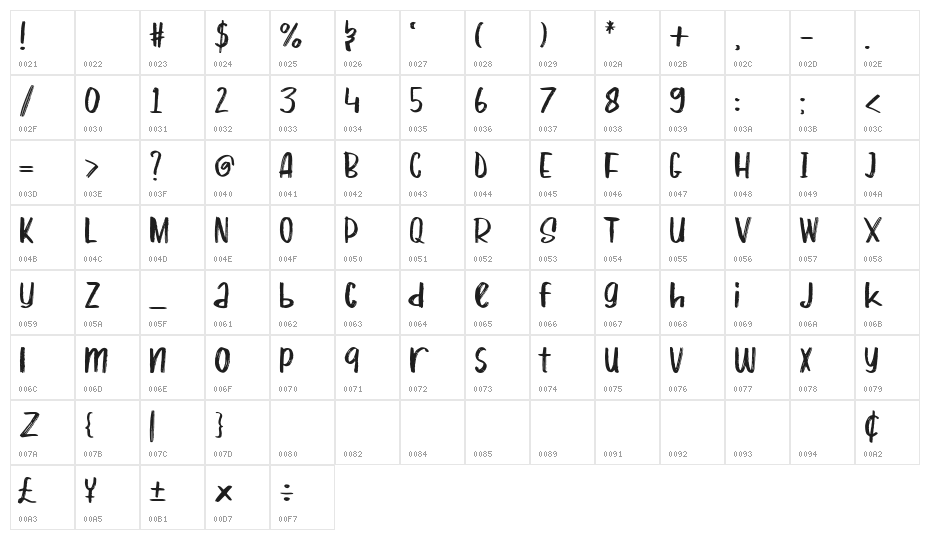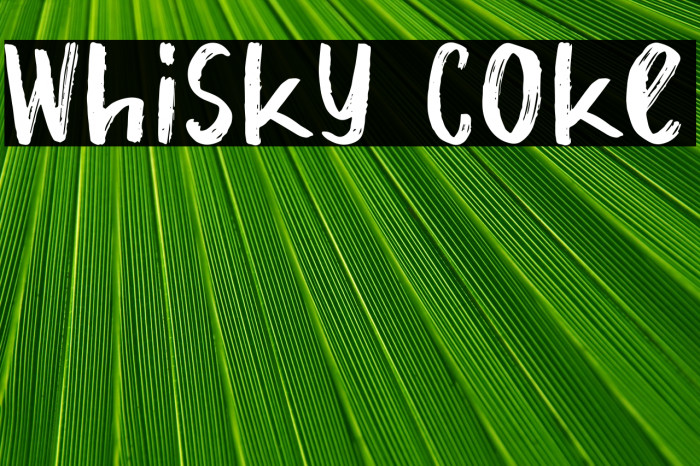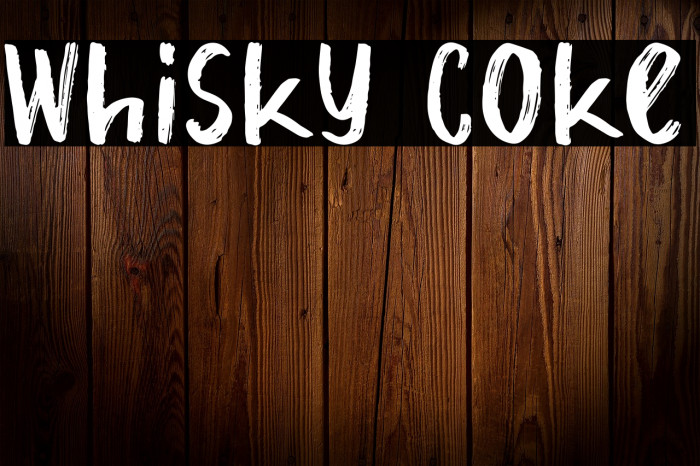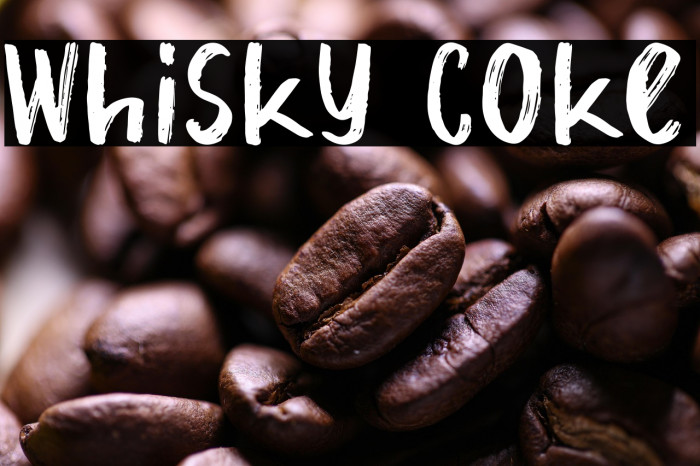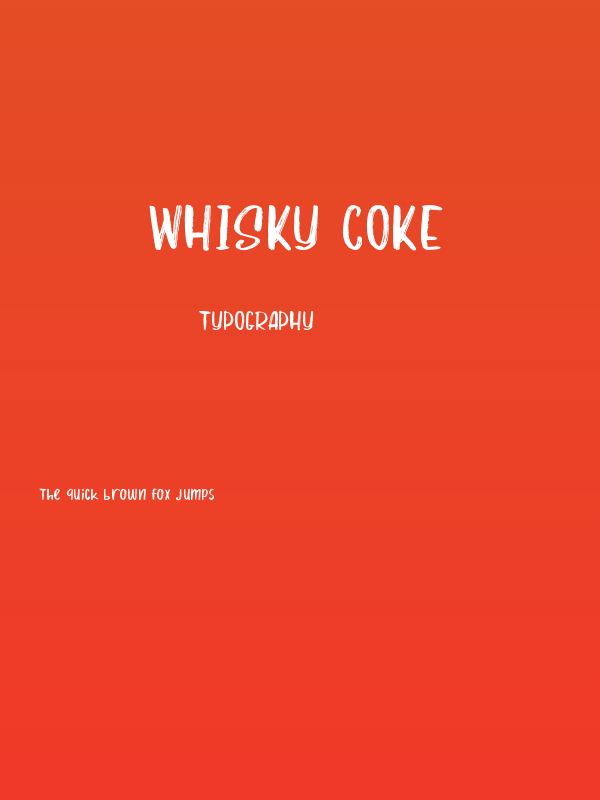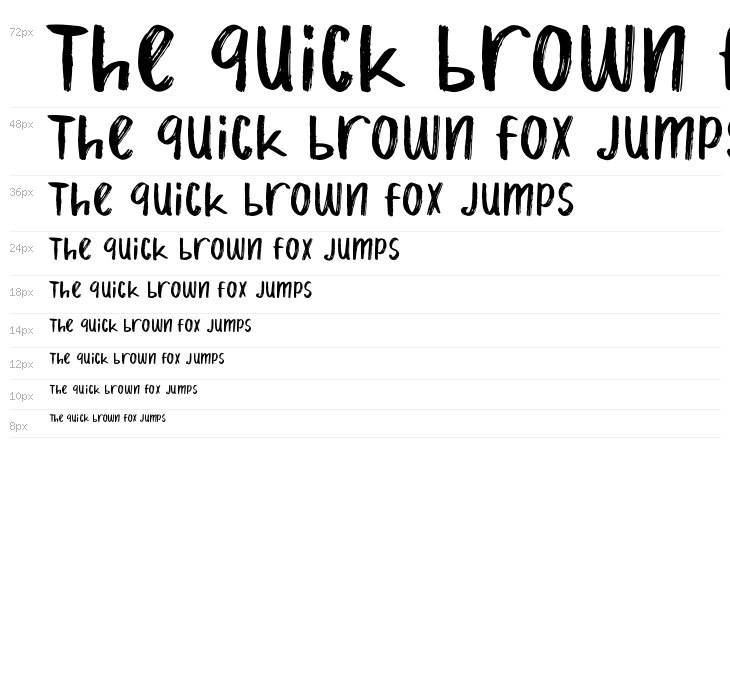
Whisky Coke Font
Whisky Coke Description
This font features a bold and expressive handwritten style, characterized by its brush-like strokes and dynamic energy. The letters have a slightly irregular form, giving them a natural and organic feel. The uppercase and lowercase letters maintain a consistent style, with some variation in stroke width that adds to the font's lively appearance. The numbers and special characters are crafted with the same attention to detail, ensuring a cohesive look across all elements. This font's distinctive style makes it ideal for projects that require a personal touch or a creative flair.
| Proposed Projects | Ideal for branding, packaging, posters, and social media graphics where a personal and creative touch is desired. |